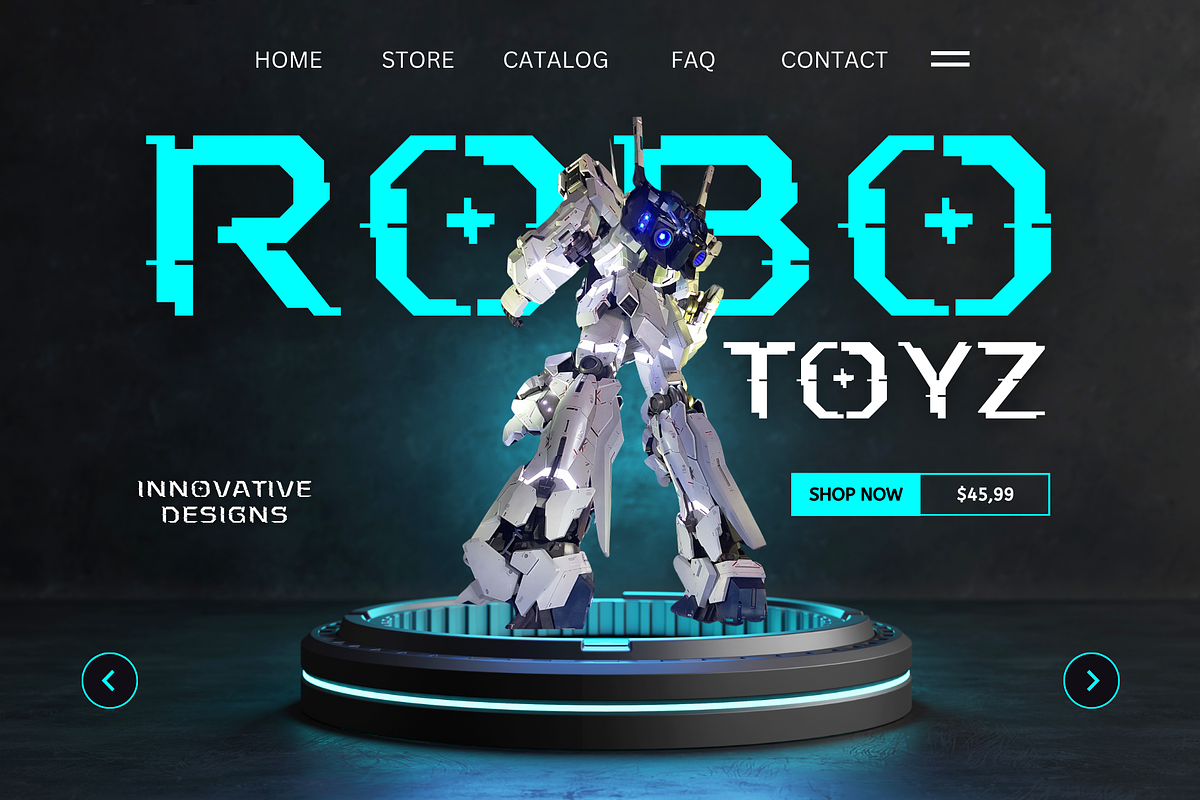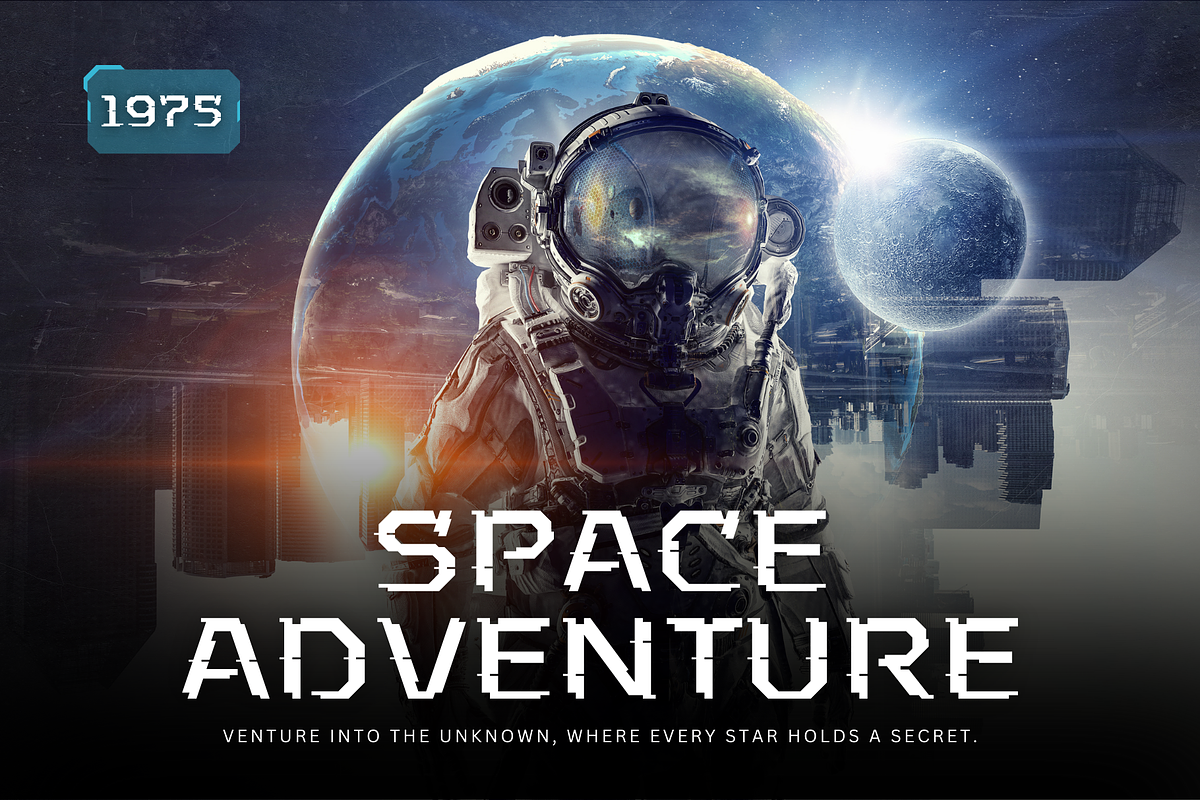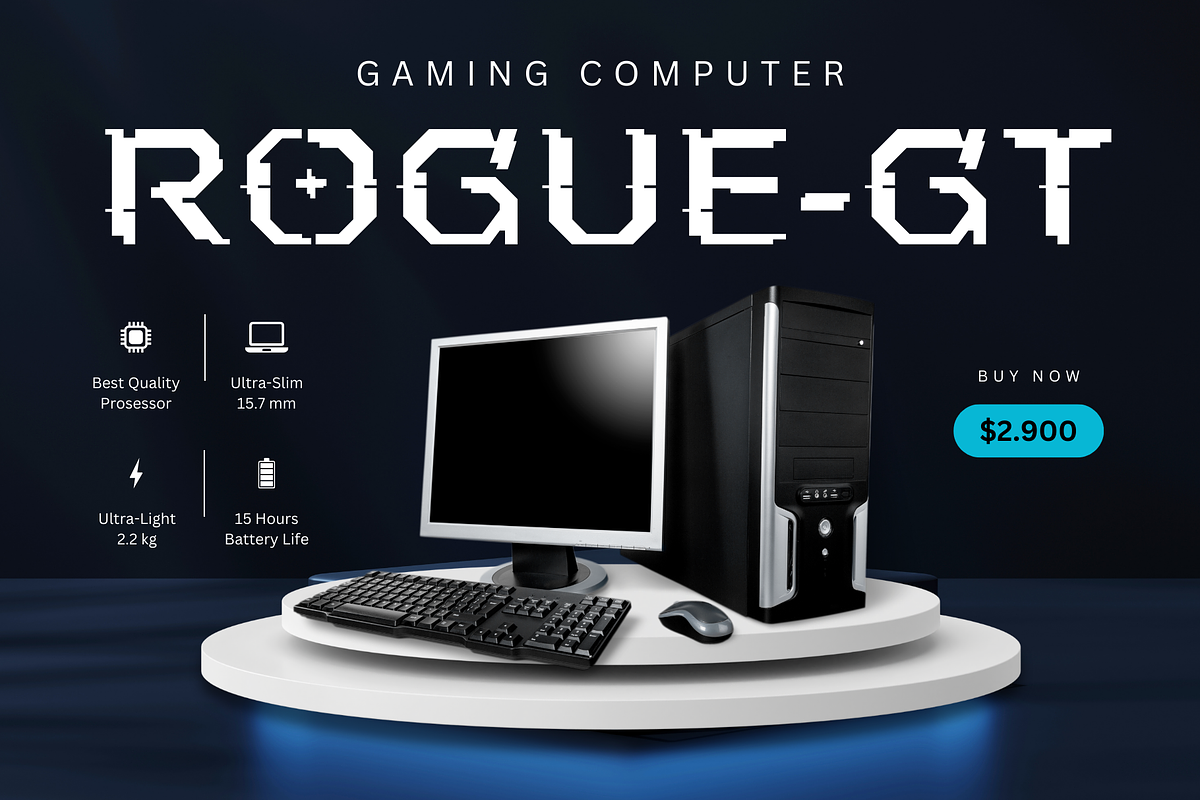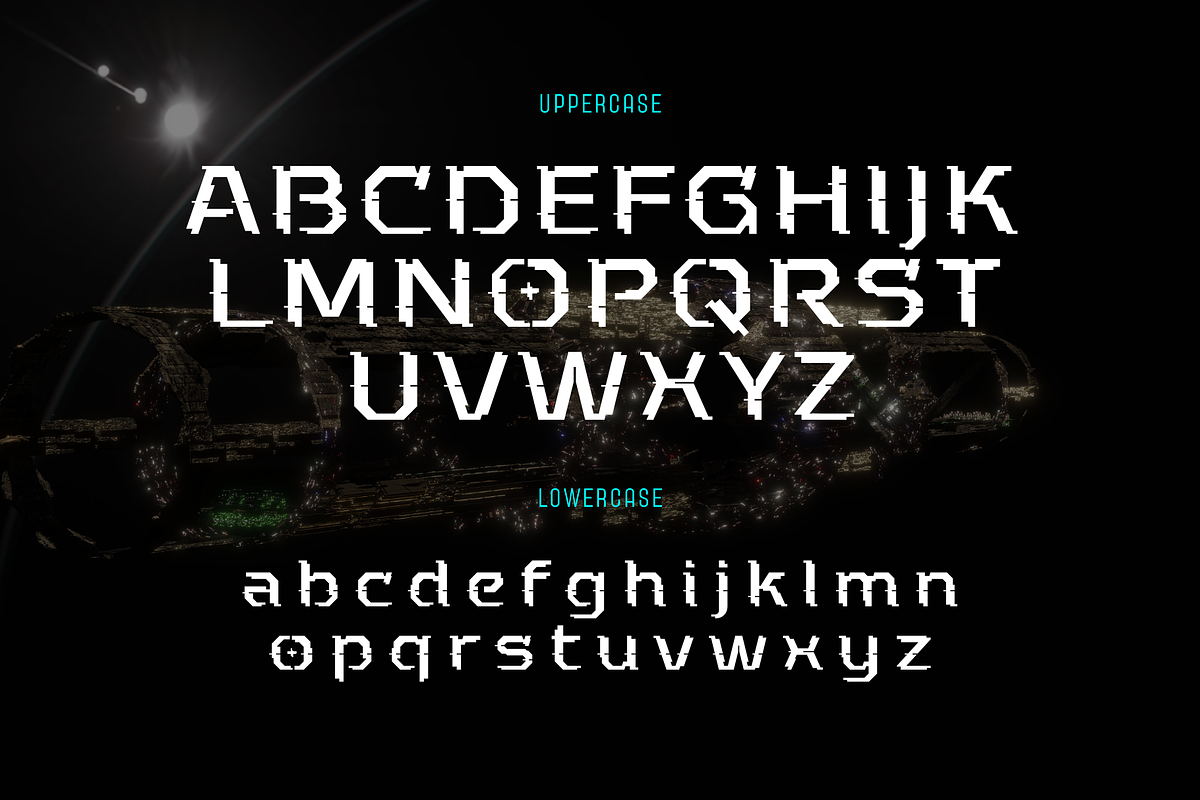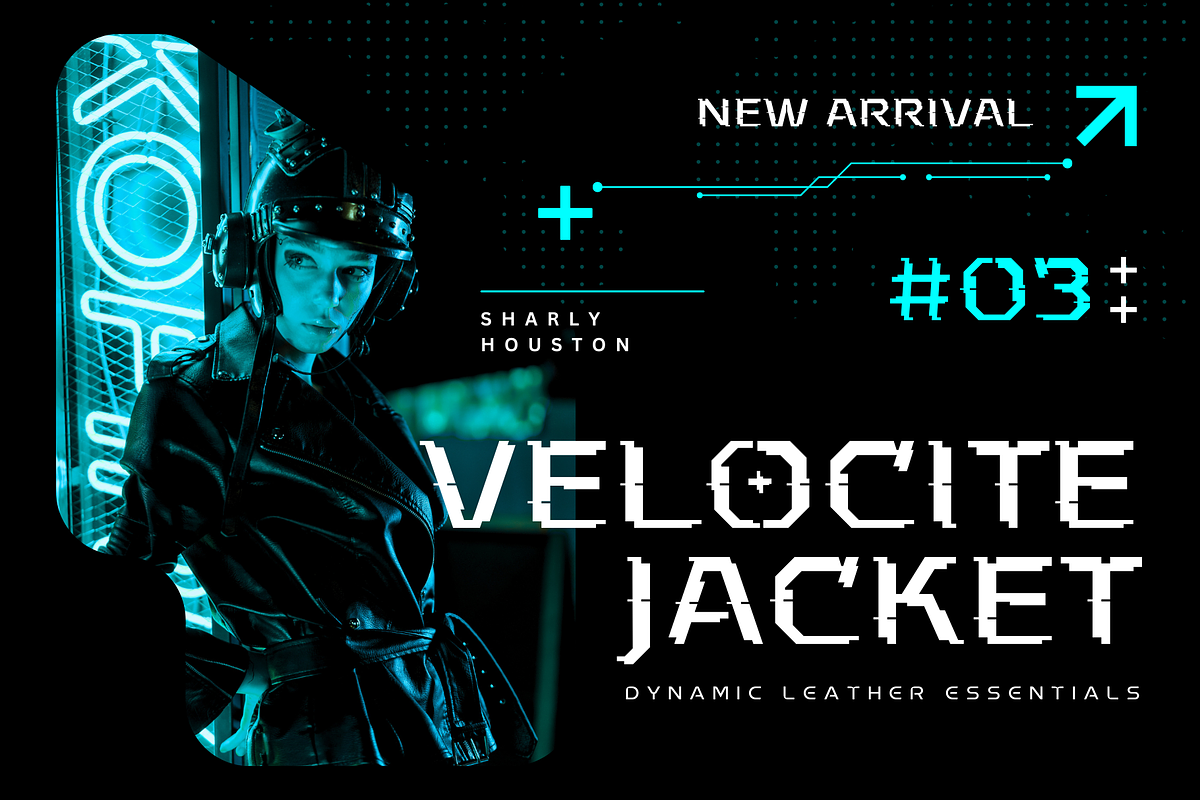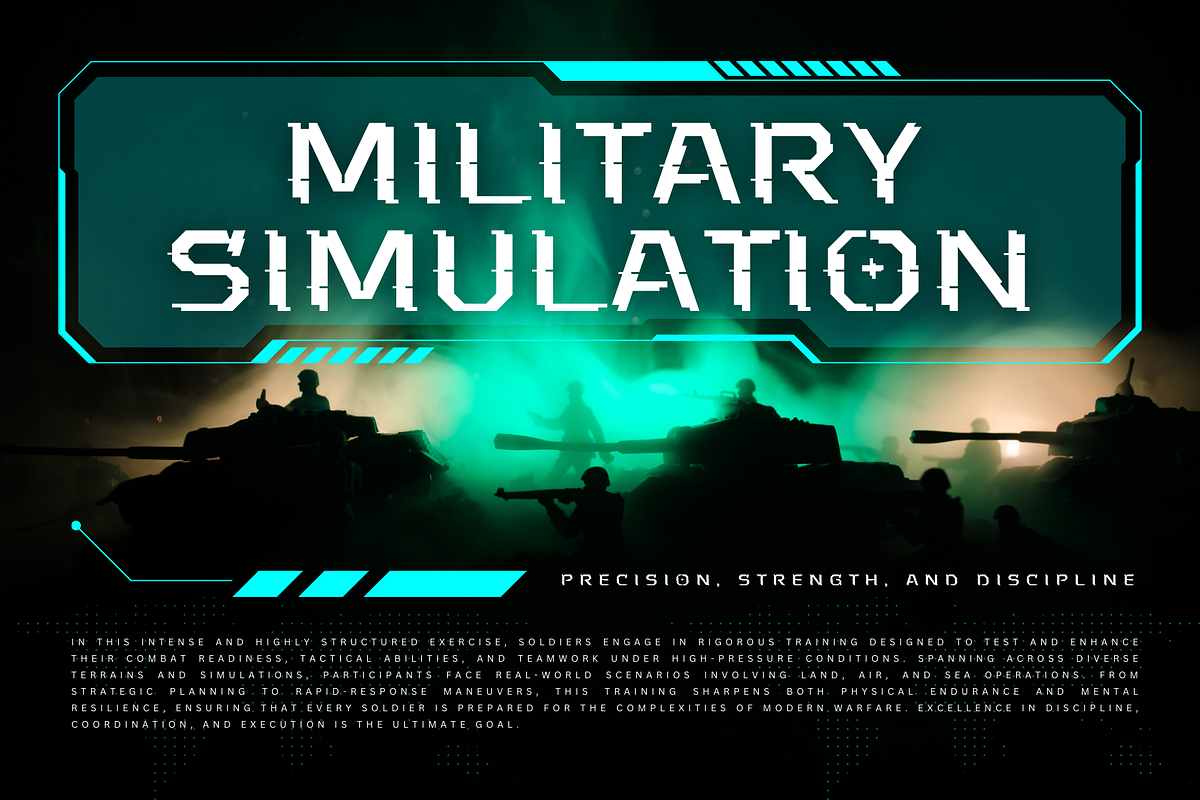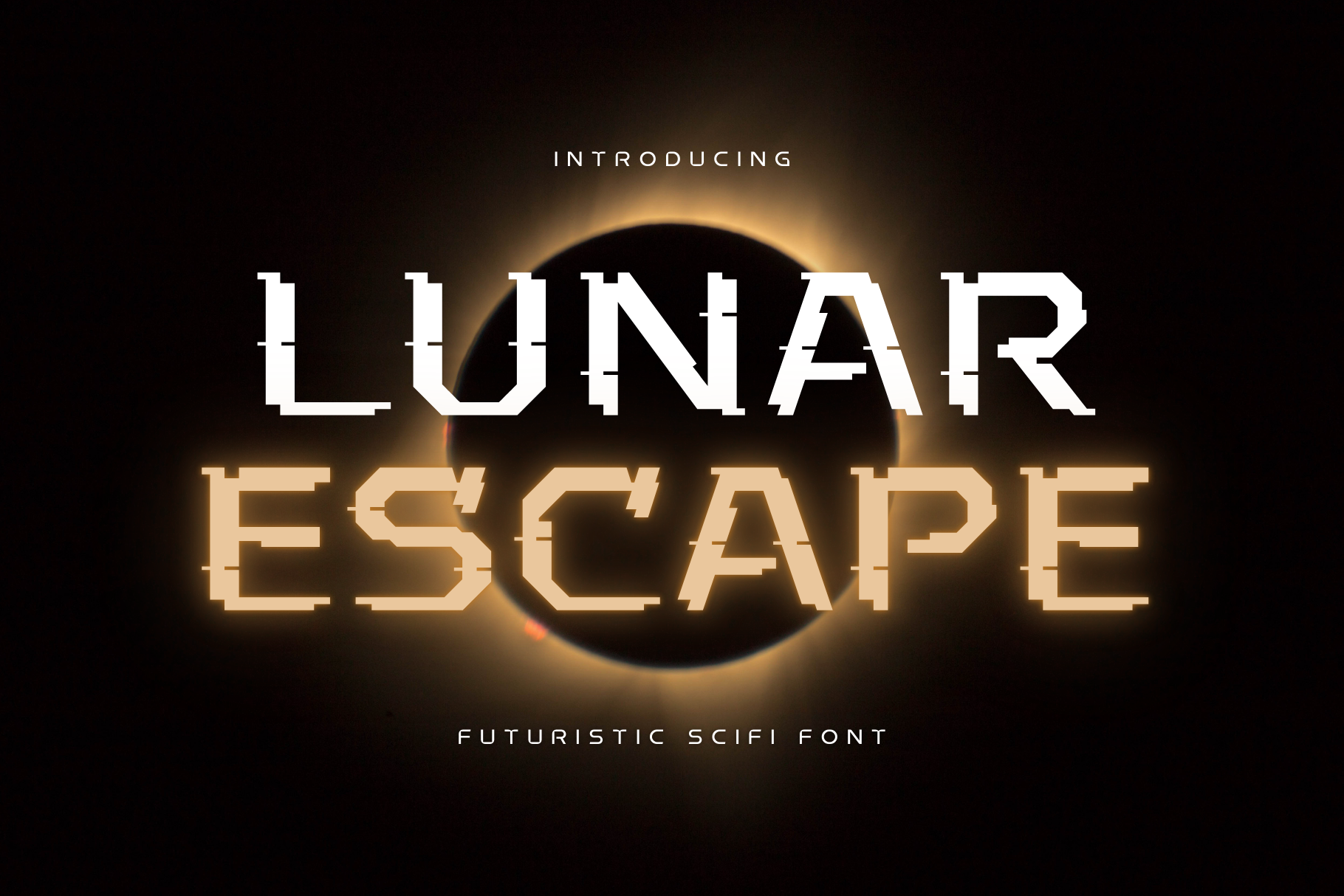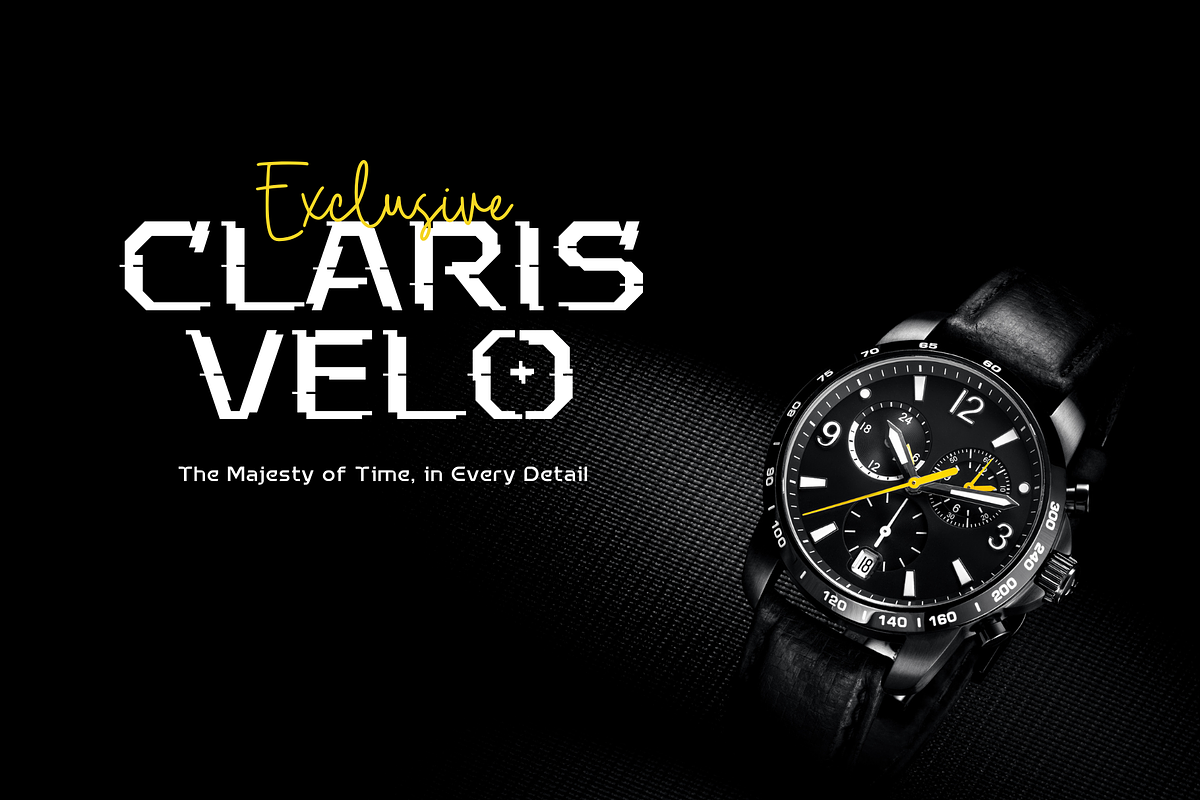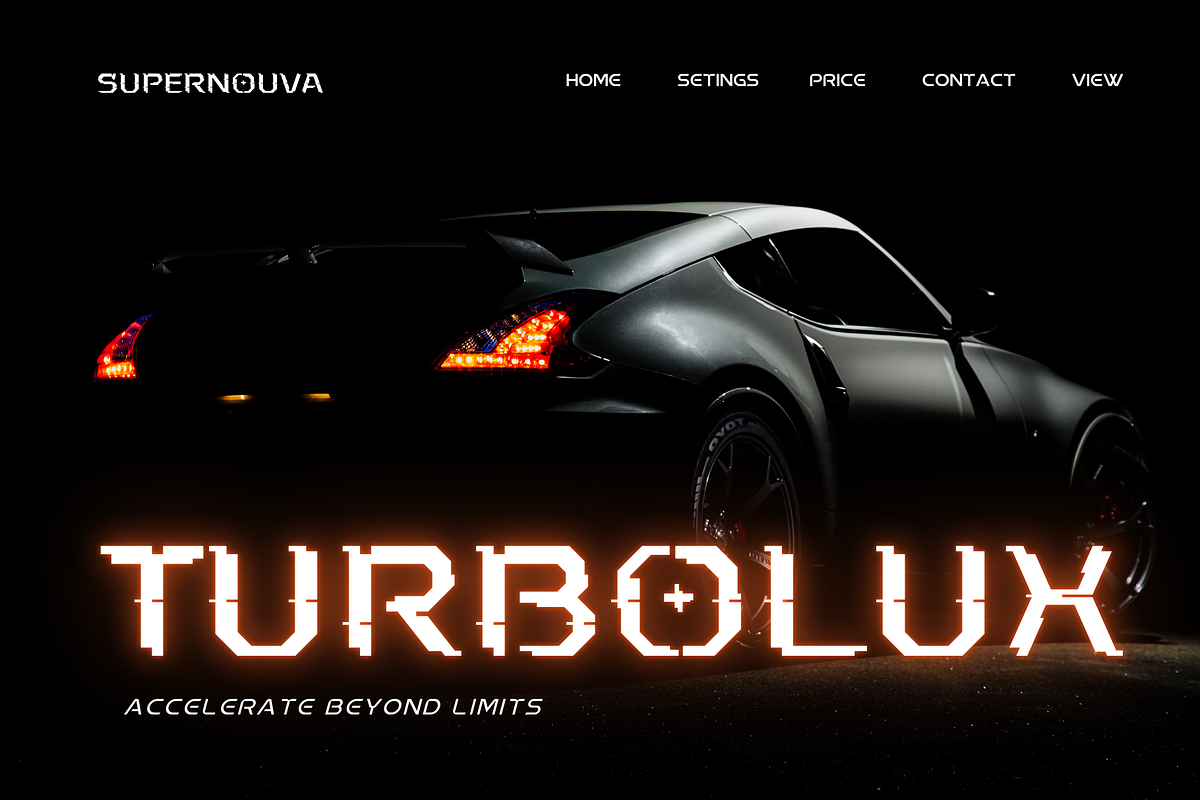
Lunar Escape - Scifi Font
Lunar Escape is a cutting-edge sci-fi tech font that captures the essence of futuristic design. With its sleek lines and sharp angles, this font is perfect for technology-focused projects, space-themed designs, and anything that needs a modern, otherworldly touch. Lunar Escape brings a high-tech, cosmic vibe to your work, making it ideal for branding, posters, video games, and more.